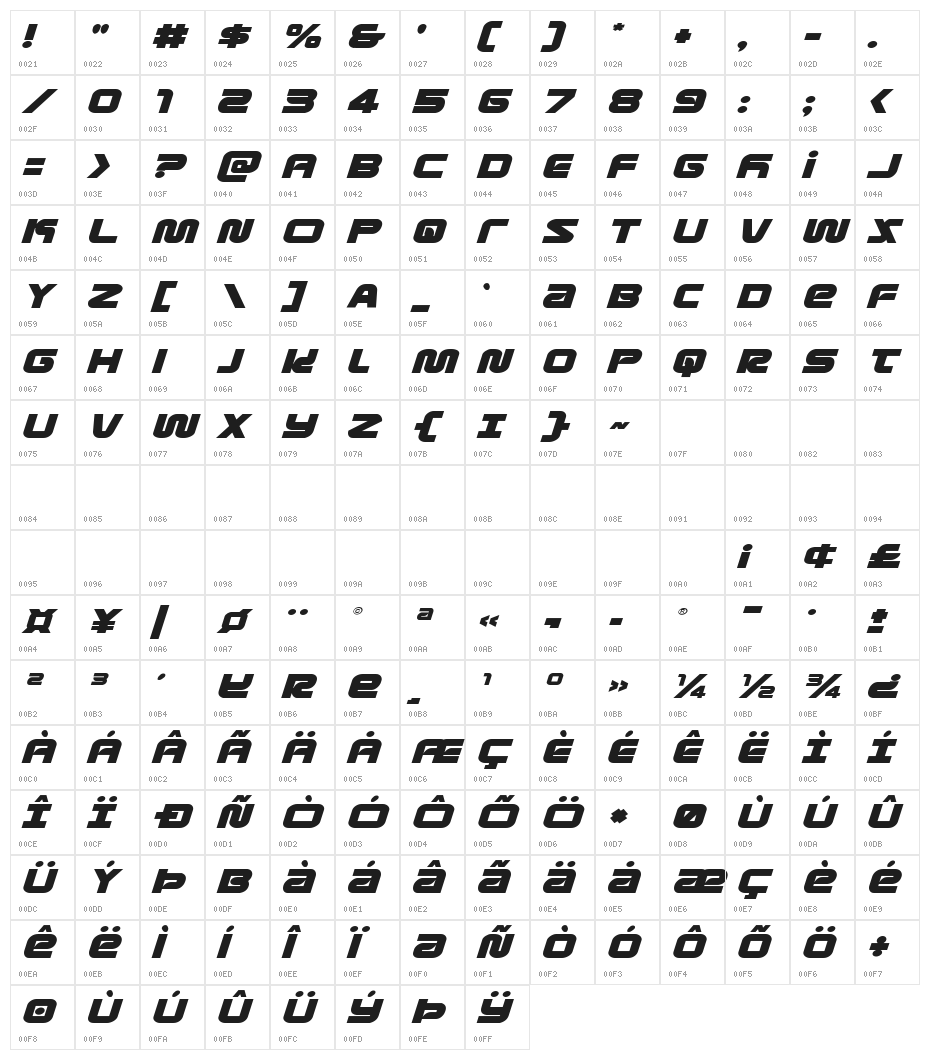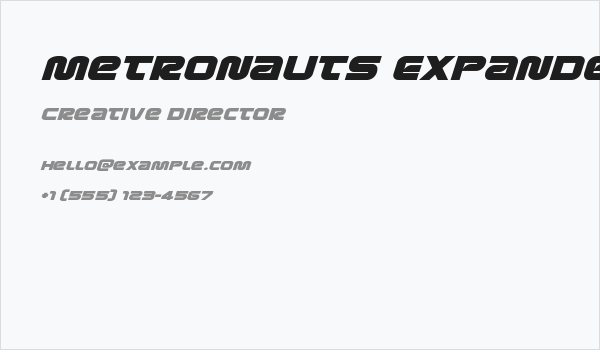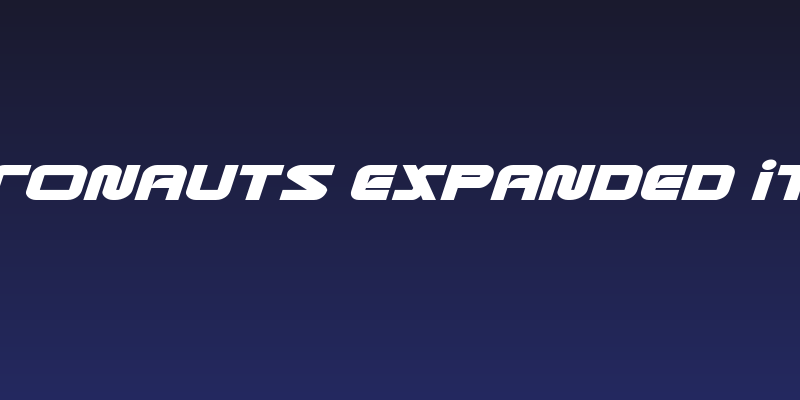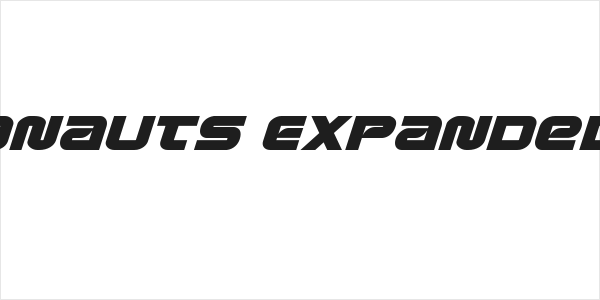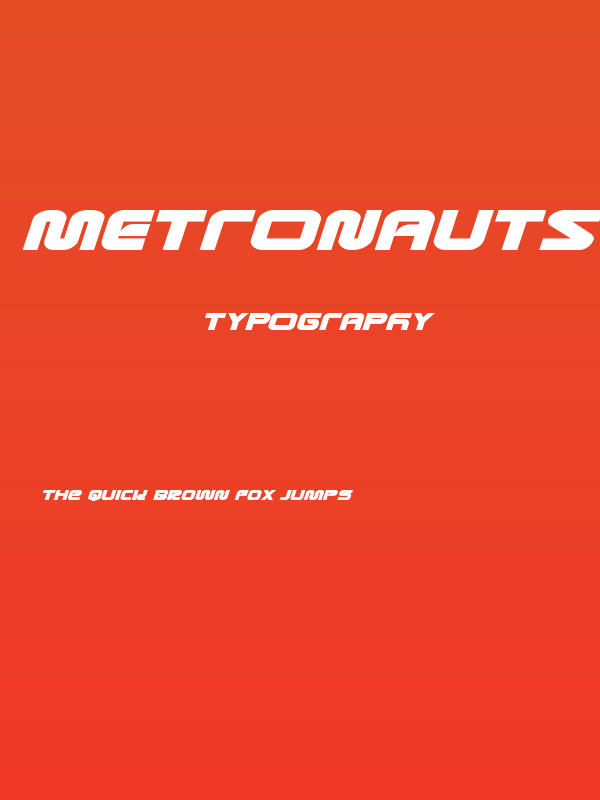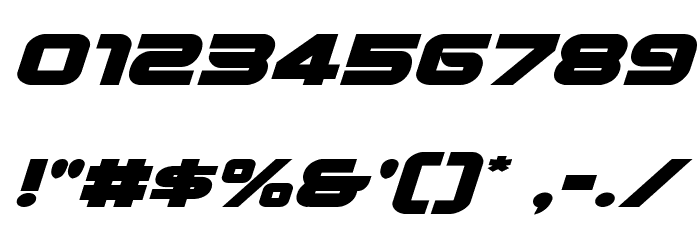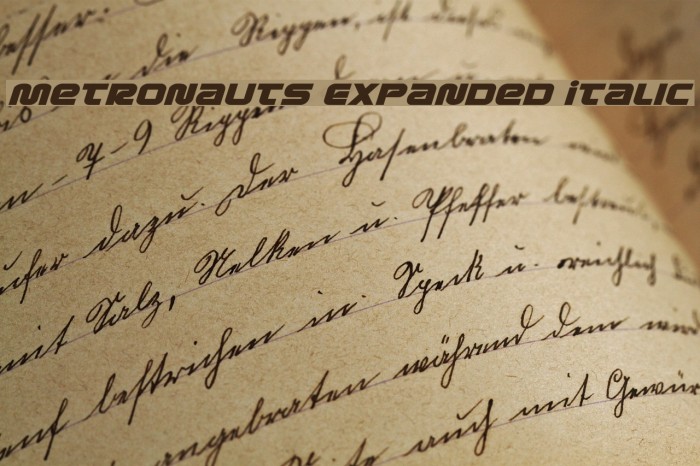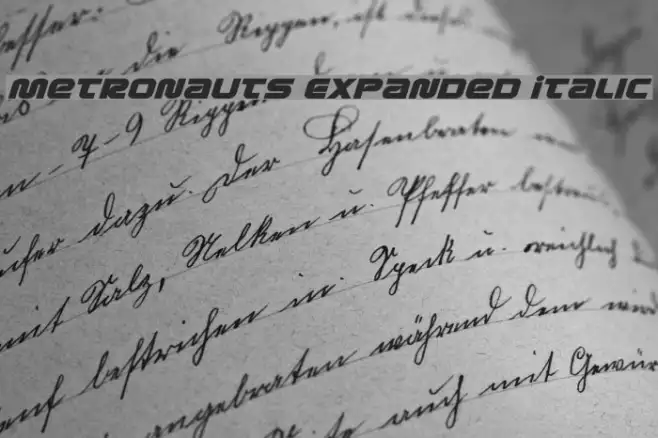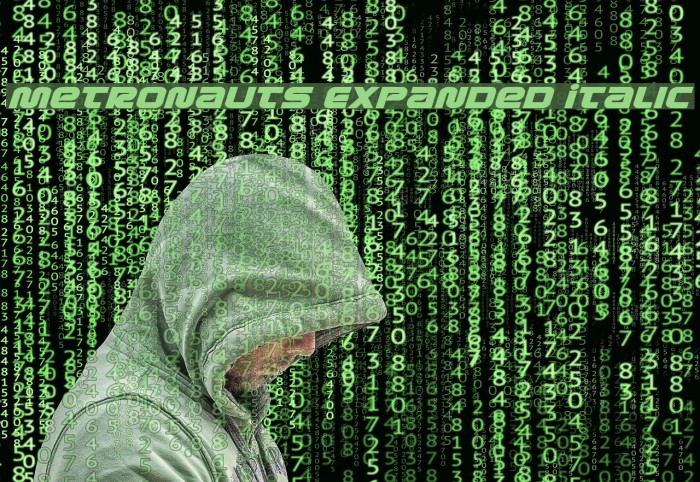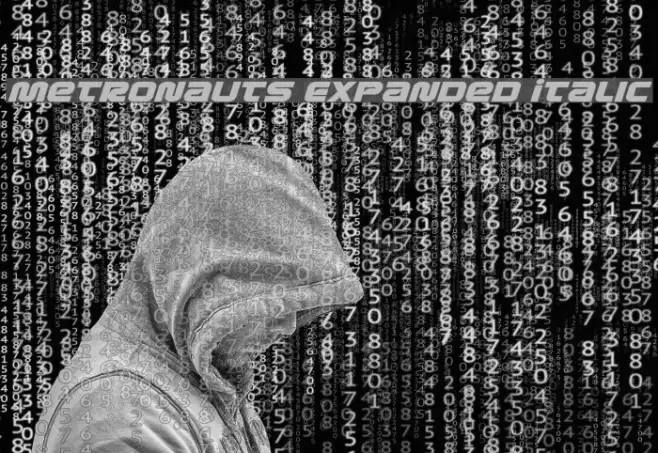
Metronauts Expanded Italic Font
Metronauts Expanded Italic Description
This font features a bold, futuristic design with an expanded and italicized style. The characters are distinctly geometric with sharp angles and smooth curves, creating a dynamic and modern appearance. The uppercase and lowercase letters maintain a consistent width, contributing to a uniform look. The numbers and special characters follow the same design principles, ensuring cohesion across all elements. The font's expanded width and italic slant give it a sense of motion and energy, making it ideal for projects that require a contemporary and eye-catching aesthetic.